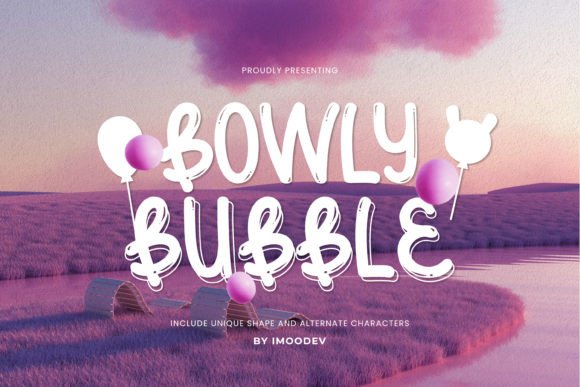
Behold Bowly Bubble, a captivating bubble font that mesmerizes with its smooth curves and stylish flair. This font embodies charm and elegance, transforming your designs into visually stunning masterpieces. Immerse yourself in the world of Bowly Bubble and embark on a journey of creativity, leaving your audience captivated by the beauty of your lettering.
Meticulously crafted with a visual style that exudes both charm and sophistication, Bowly Bubble elevates your designs to new heights. Its versatile nature allows for seamless integration into a myriad of projects, whether it's a captivating display font for headings, an unforgettable logo font, or an enchanting font for invitations and branding. Unleash your imagination and create designs that leave an enduring impression.
With Bowly Bubble, you'll find endless opportunities to add a touch of elegance to your designs. Its versatility extends to a wide range of applications, including magazine layouts, photography projects, greeting cards, product packaging, product mockups, mugs, posters, labels, and more. Experience the creative freedom as you infuse your designs with the charm of Bowly Bubble.
This font is PUA encoded, granting you effortless access to an array of remarkable glyphs and ligatures. Elevate your designs with intricate details and add a touch of refinement to your lettering. Unleash your creativity and explore the endless possibilities that Bowly Bubble has to offer.